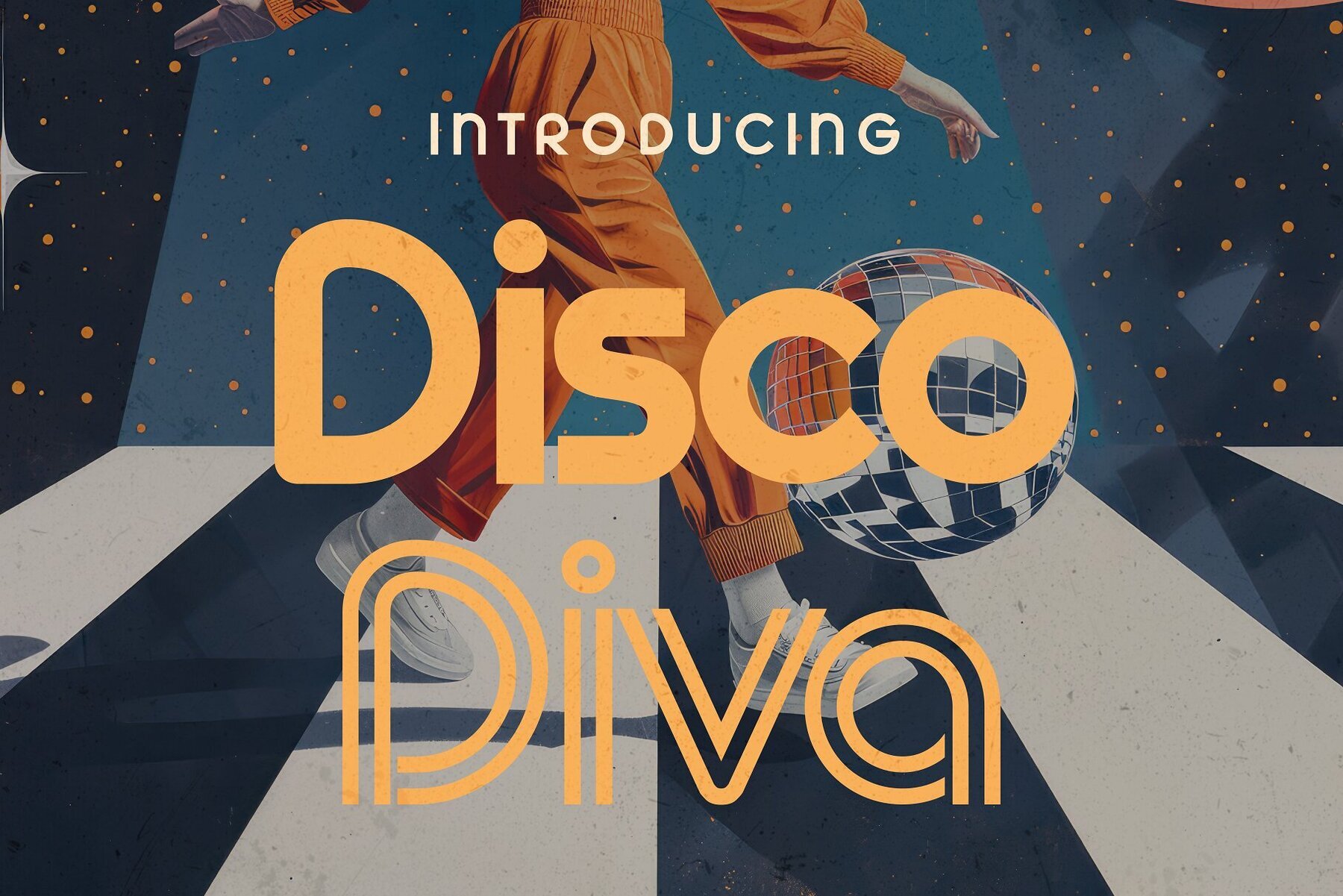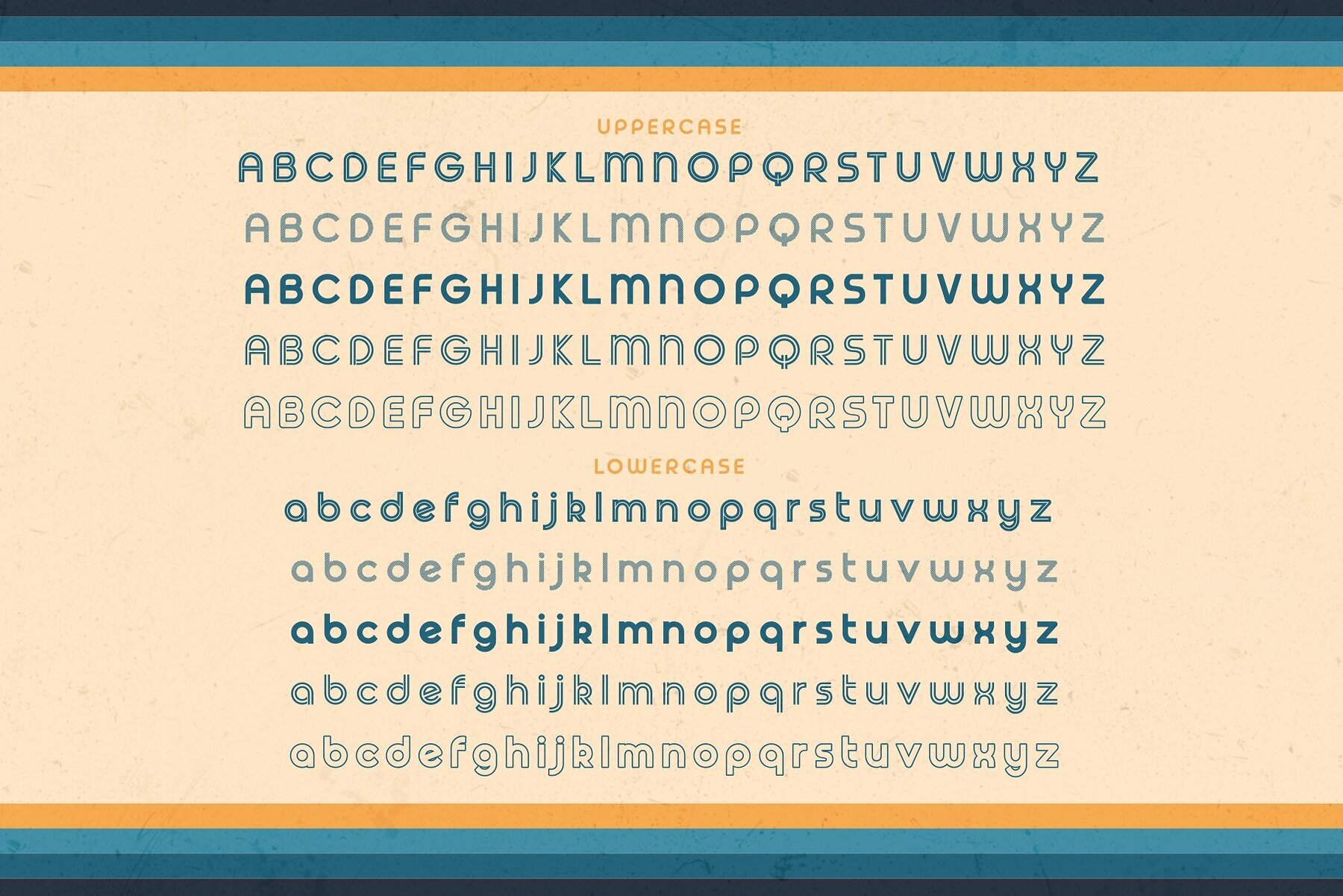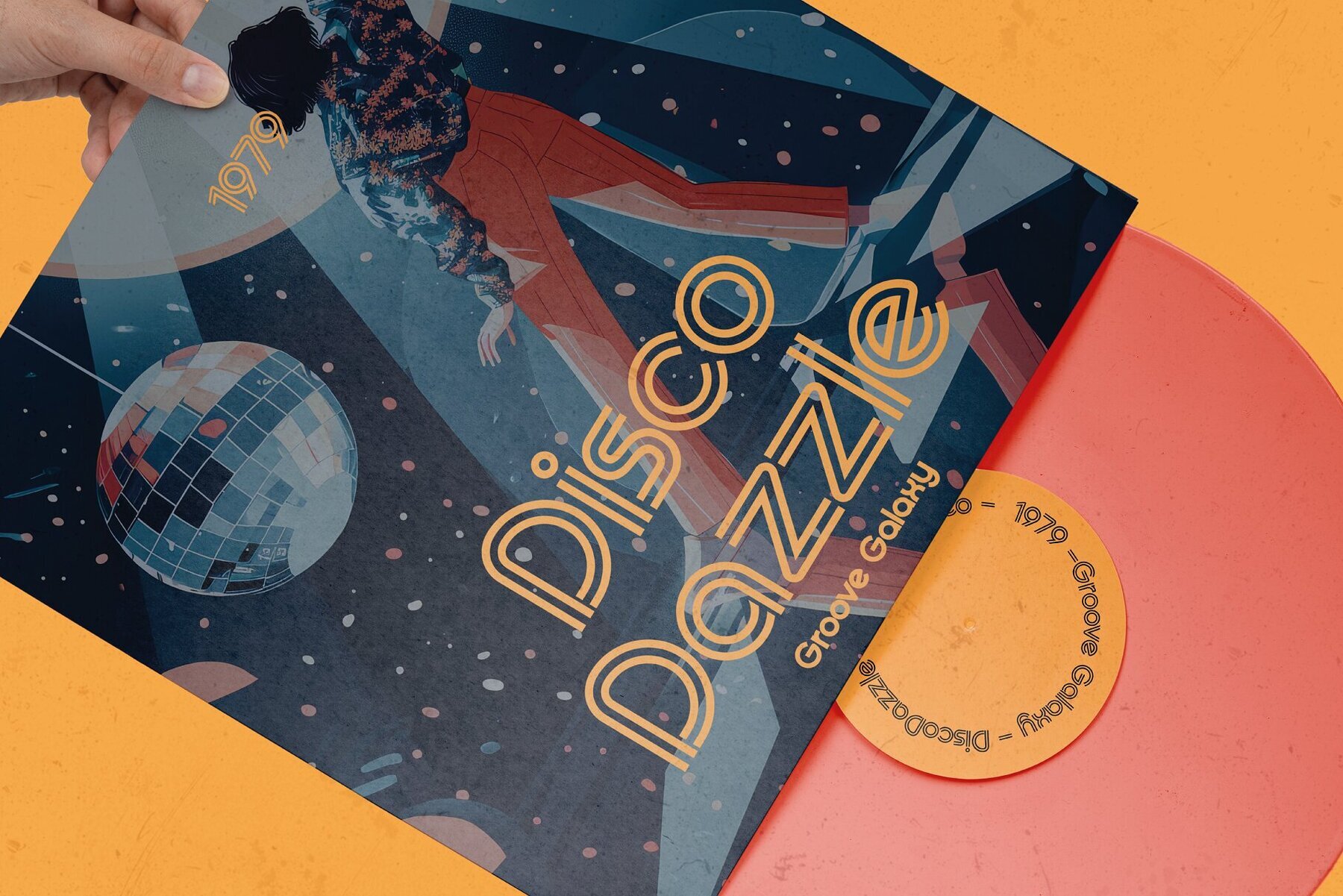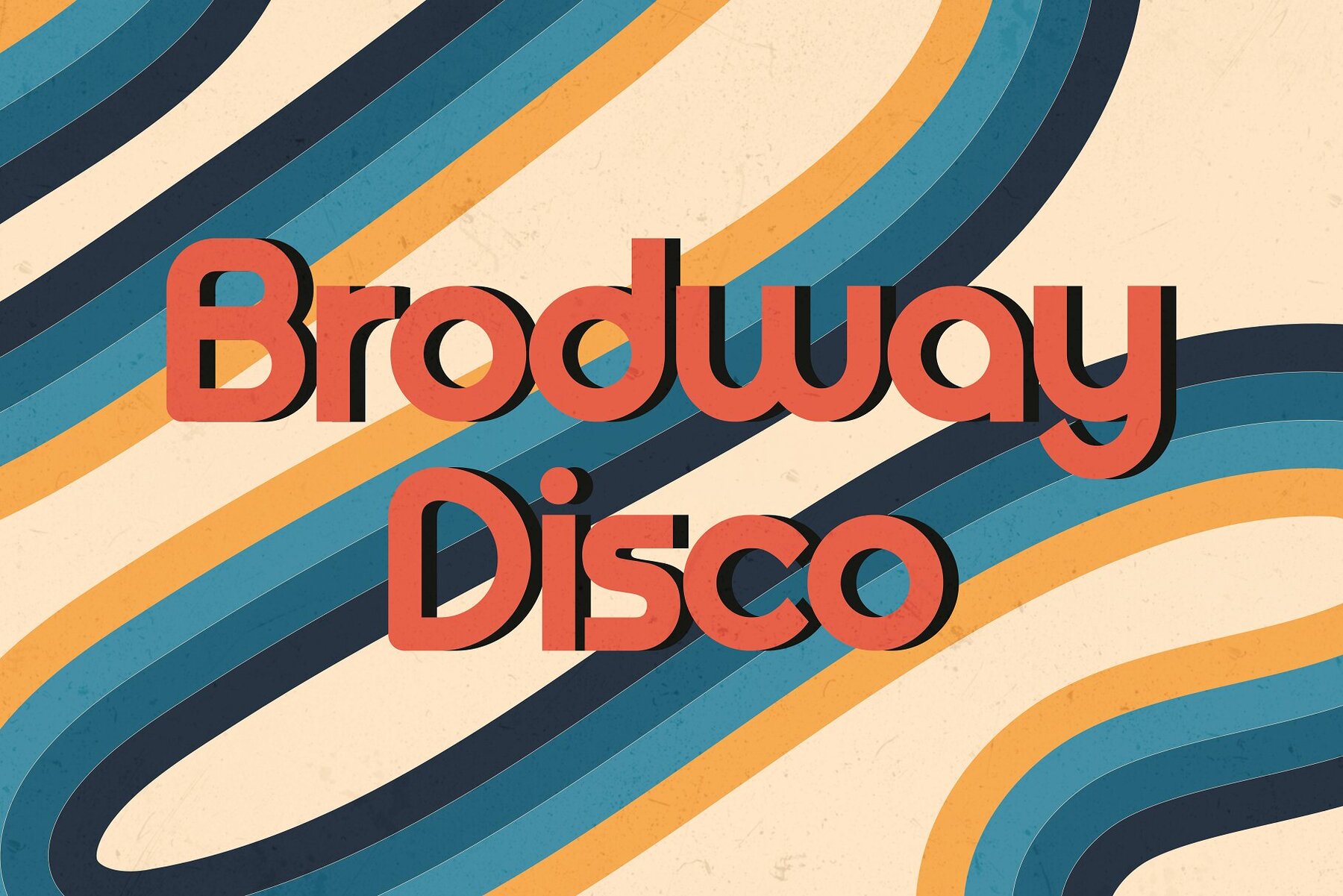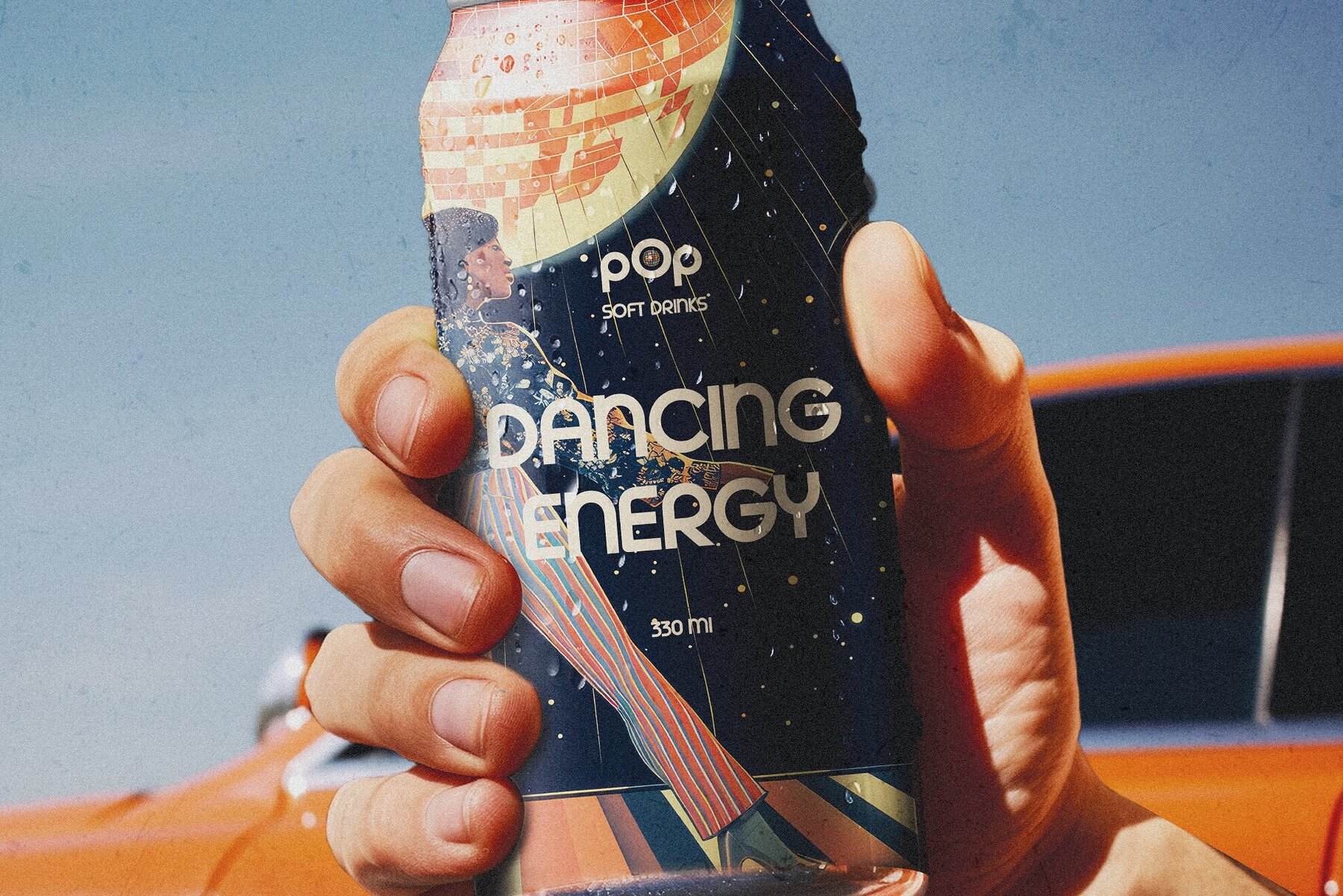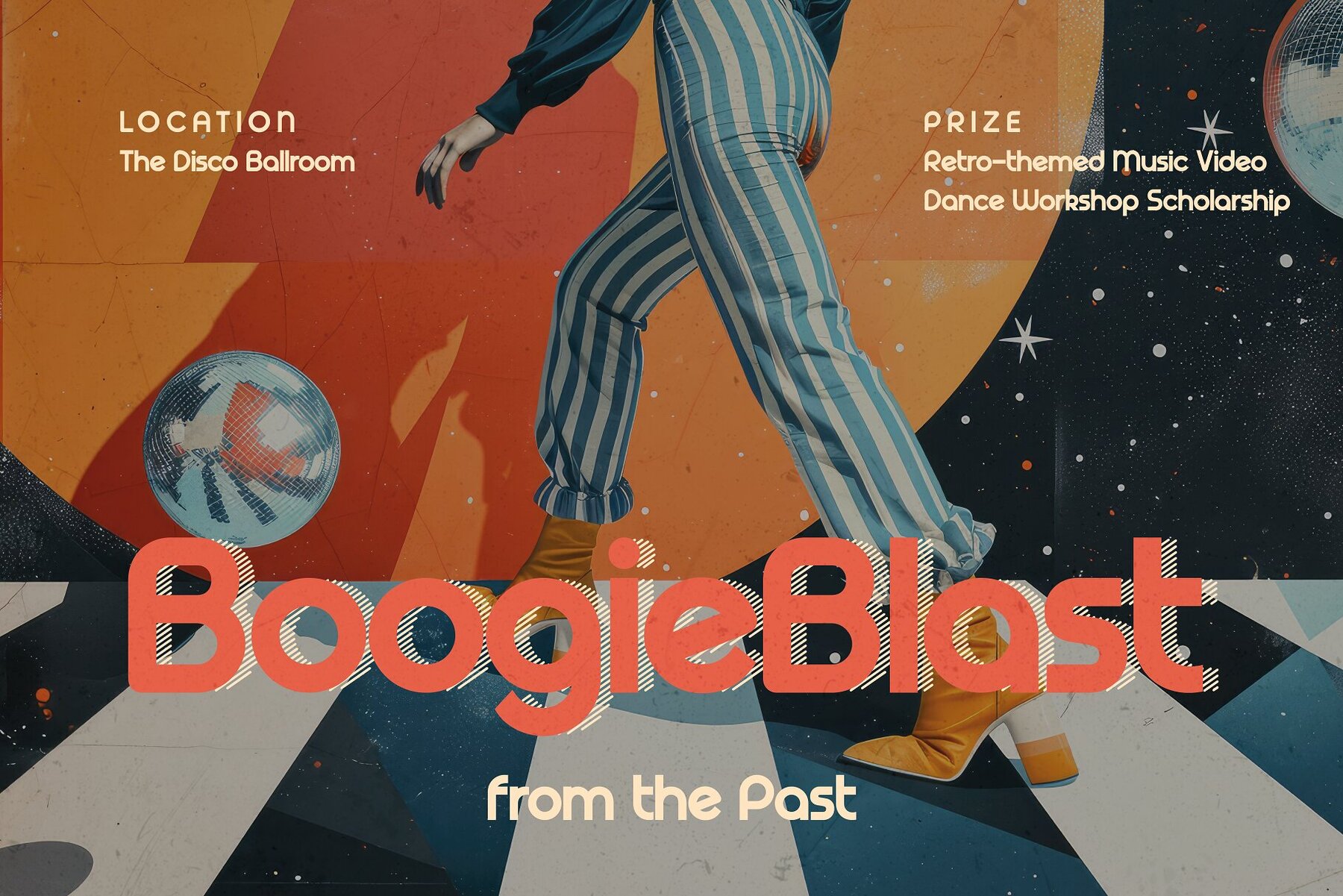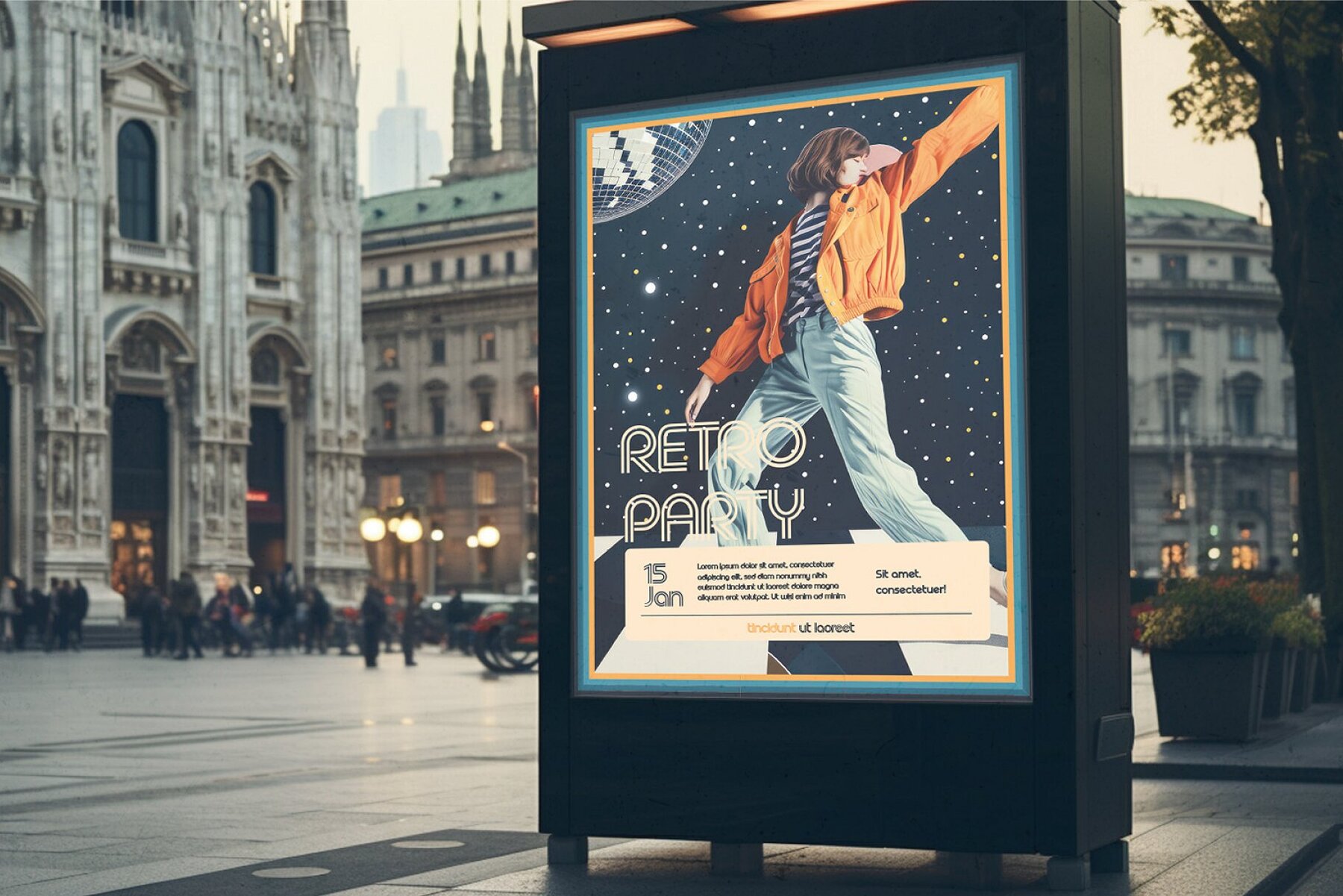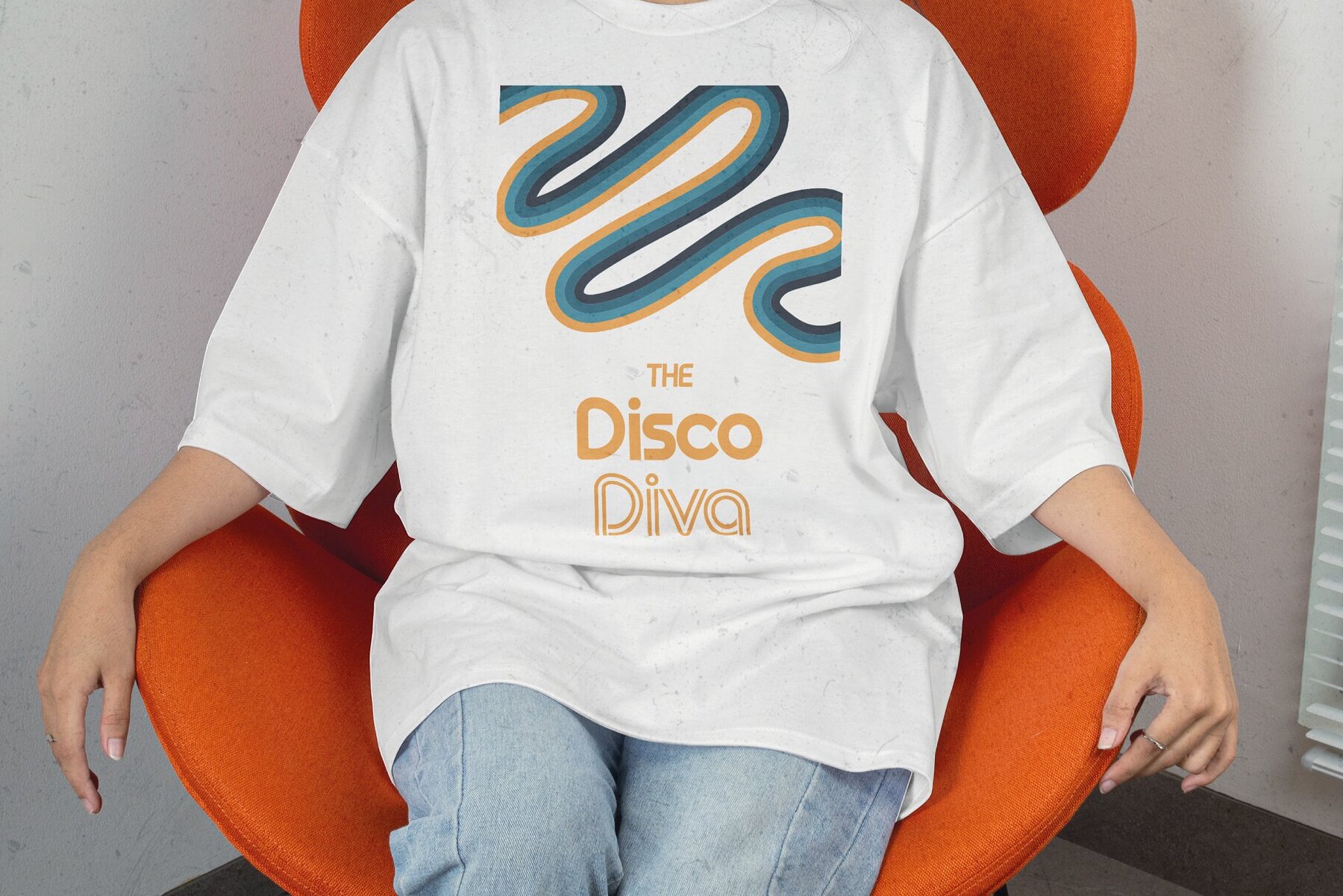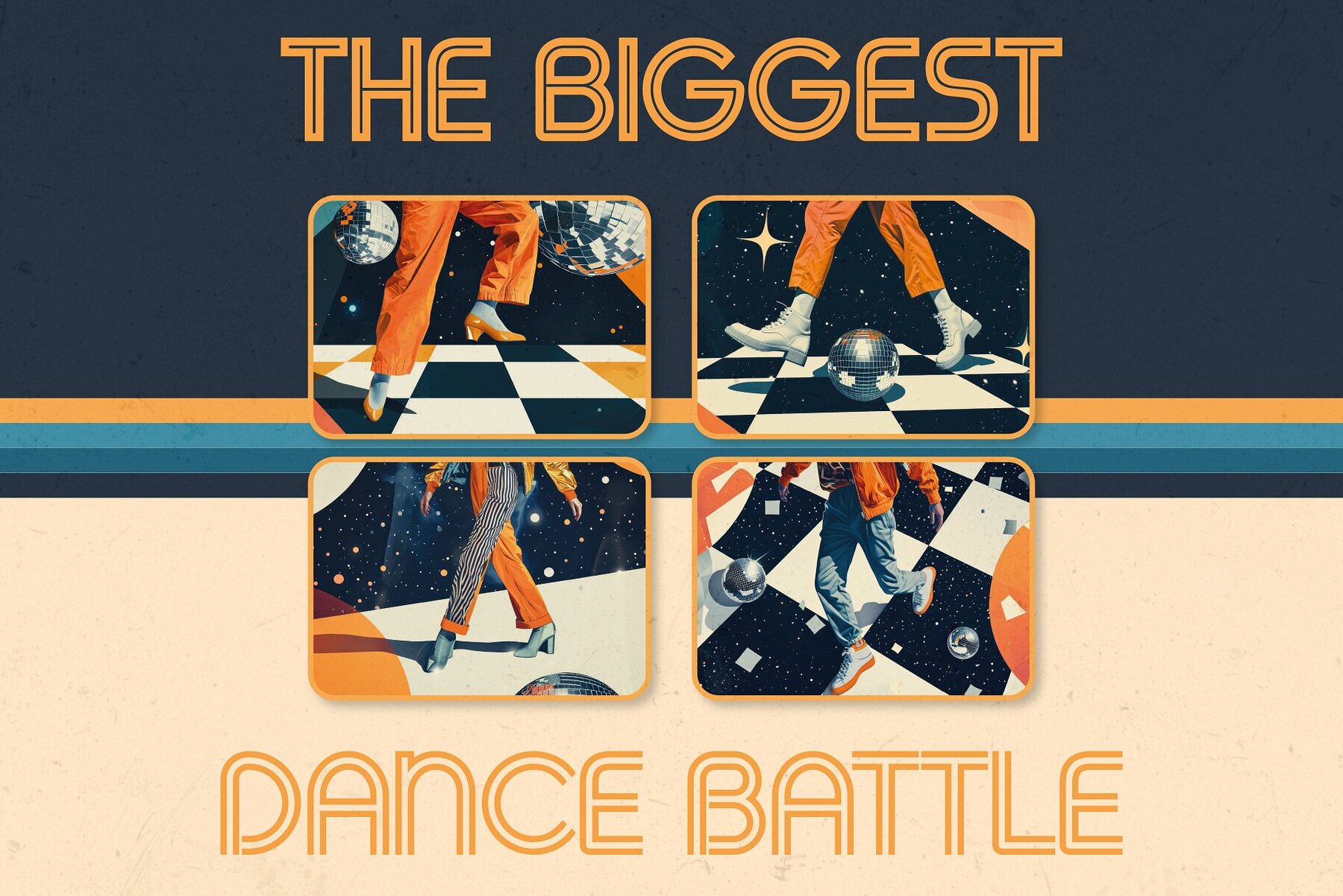
Disco Diva Font
Get ready to boogie with Disco Diva, the ultimate funky and groovy typeface inspired by the dazzling disco era! Perfectly capturing the essence of the 70s, Disco Diva brings a burst of vibrant energy to any project. This typeface offers four unique styles—Line, Regular, Sketch, and Inline—providing endless creative possibilities.
Ideal for designing posters, invitations, branding, or digital content, Disco Diva adds retro charm and irresistible flair to your work. Let the dance floor light up with the electrifying spirit of Disco Diva and make your designs stand out with its vibrant and captivating style.